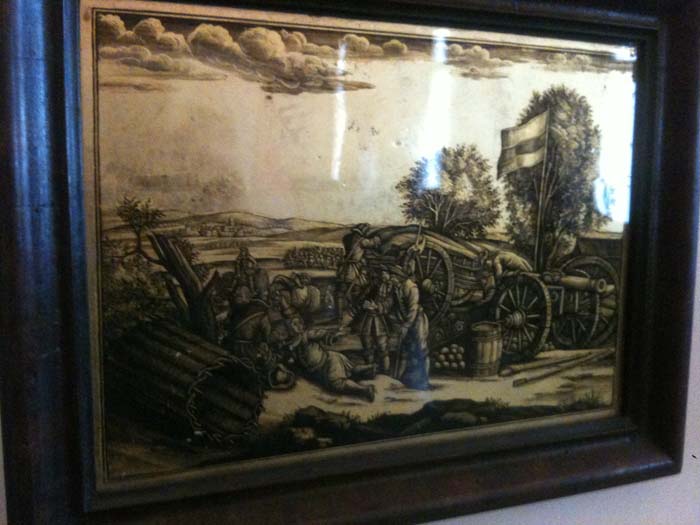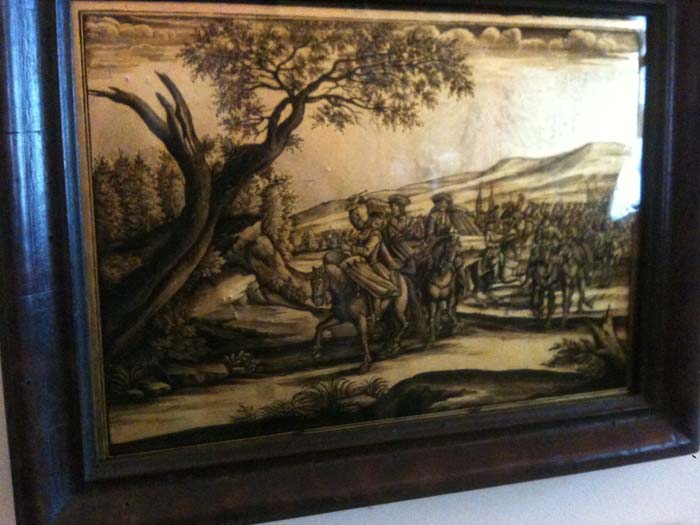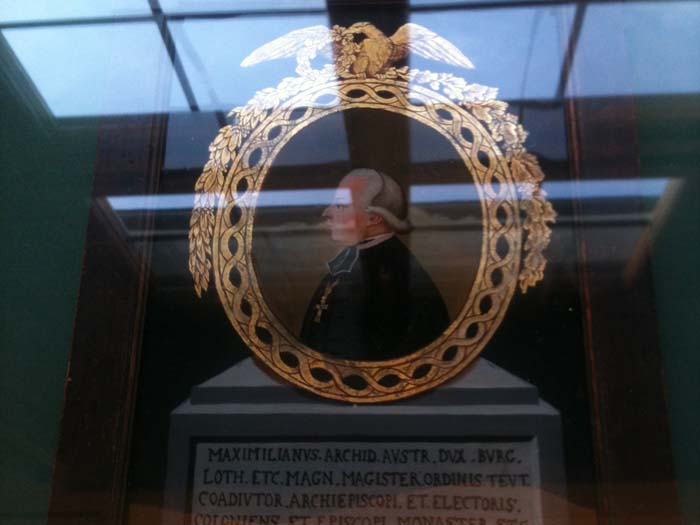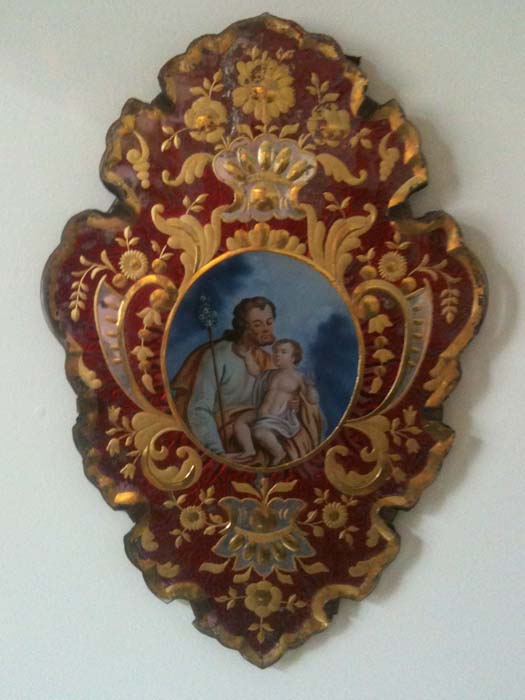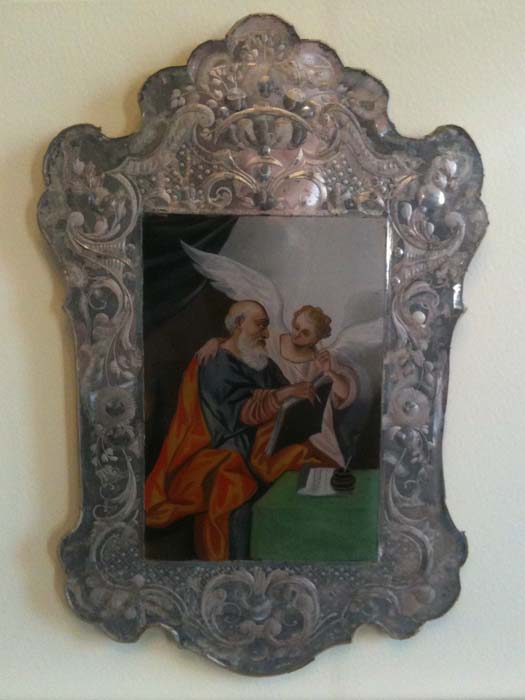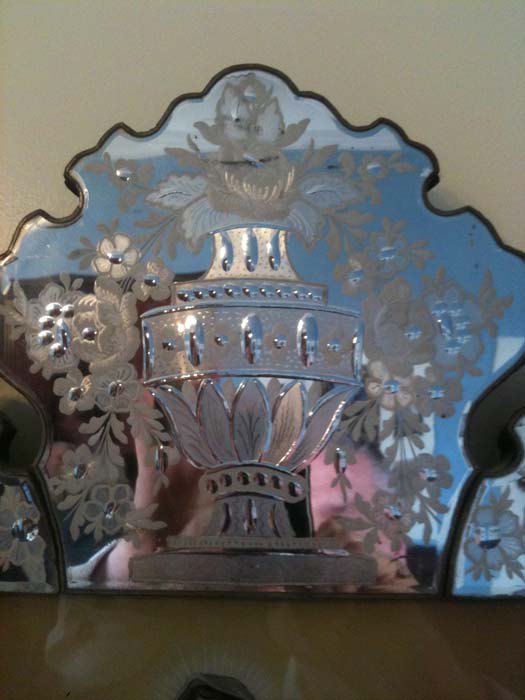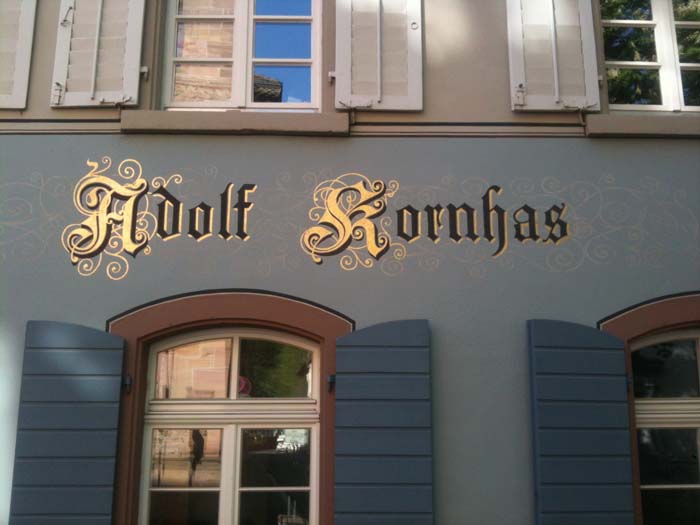
Always fun, looking at the changes. I see that they changed the windows - the now image shows picture windows with small panes above, both changed since the earlier photo.
But the real change that would surprise your grandfather is the way the neighborhood has evolved, as the business a few doors up show. I presume this is the red light district? When I was there in 1970 it was a nice area, with cheap hotels and pomme frites available at 2 am, and all these friendly girls sitting in the windows working on their tans. I was sort of naive...
Yes Lee, it is in the red light district.
The little windows are changed for comfort when cleaning and because big windows gives more light and that was the way of thinking after the 50ties. Fortunatly people changed their mind and appreciate the little windows again because it has more character and is more authentic and somehow they come back again in the old centre of the city.
I was invited by the German branch of reverse painted glass enthusiasts to attend the opening of an exhibition about reverse painted glass in the [urlhttp://www.kunstsammlungen-museen.augsburg.de/ ... p?id=20189]Schaezlerpalais[/url] in the Bavarian city of Augsburg.
There were privat collectors, restorers, minister of culture, professors in art history and regular German history.
It was a high society event which was opened in the greatly decorated Rokokofestsaal by a classical concert with violin and cello.
The exhibition was about a part of a private collection with reverse painted glass form 1550 through 1850.
„... eine andere Art von Malerey“ (in English: An other art of painting)
The great thing about the exhibtion is that the private collector researched for more then 30 years all of the original etchings or drawings on paper which were copied onto the glass.
A massive work and very interessting to see.
Here a few photo's:
Here a few good inspirtational ones for us:
Hopefully my new lettering will stay there at least another 30 to 40 years.